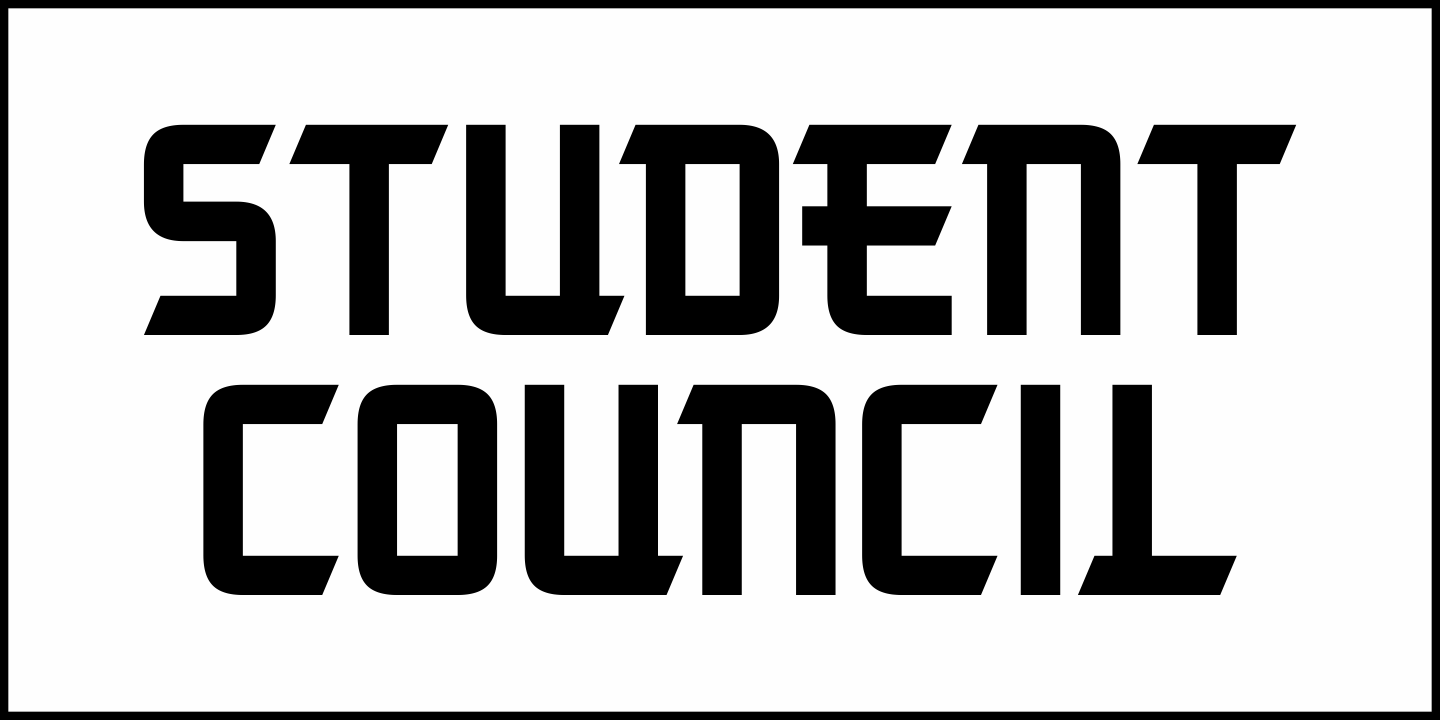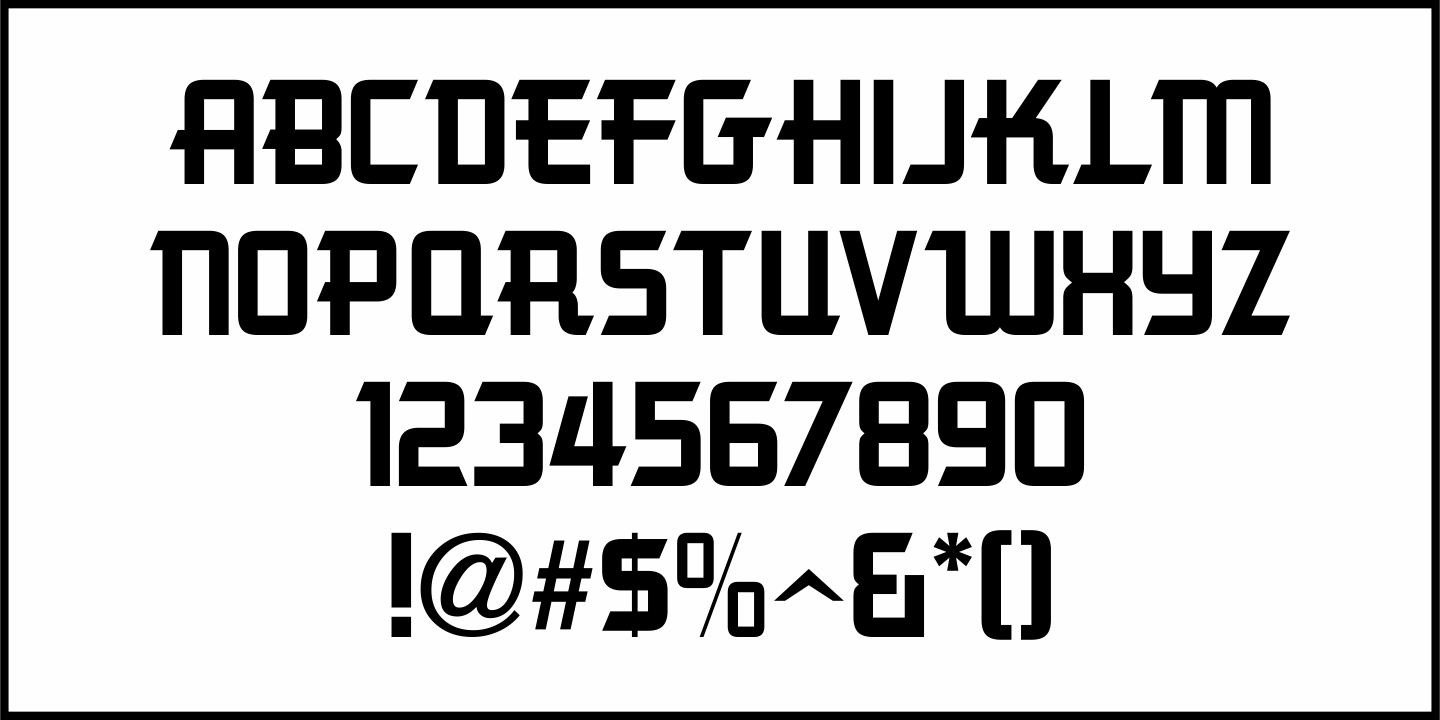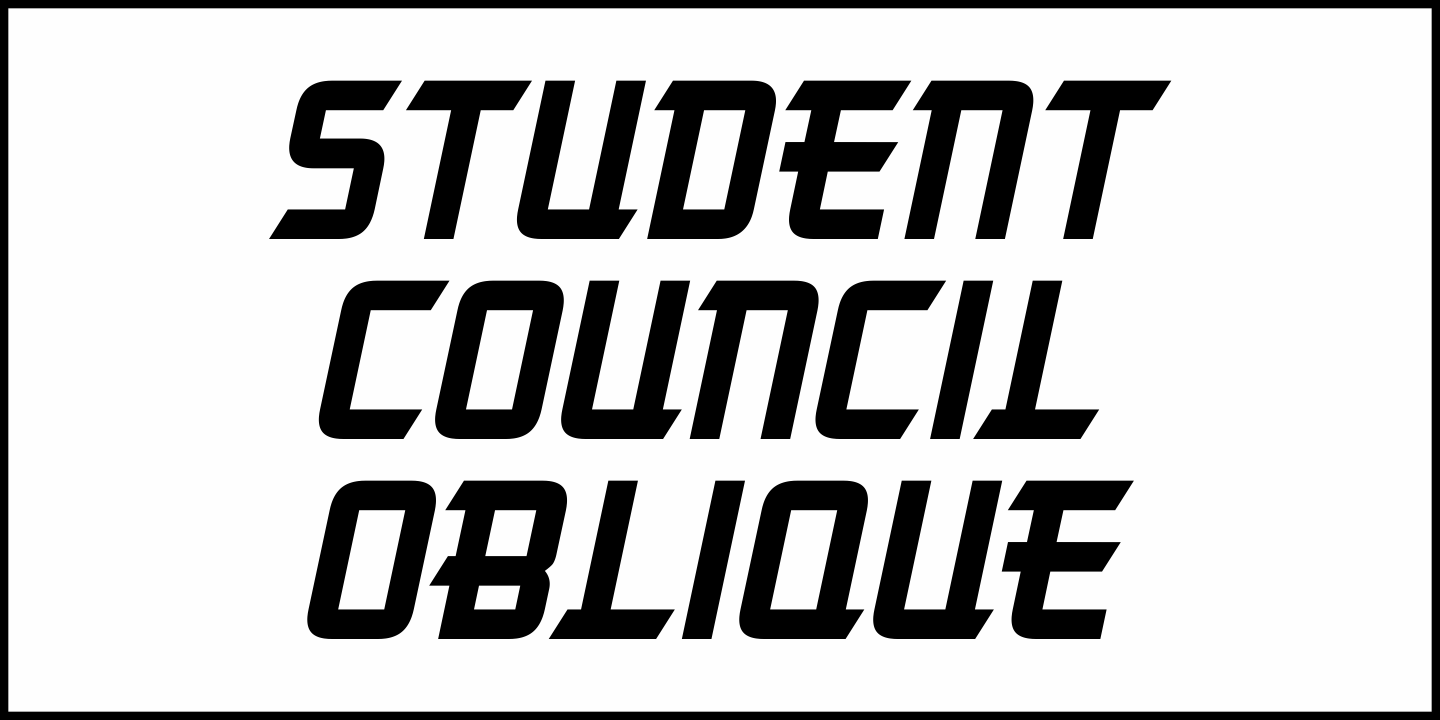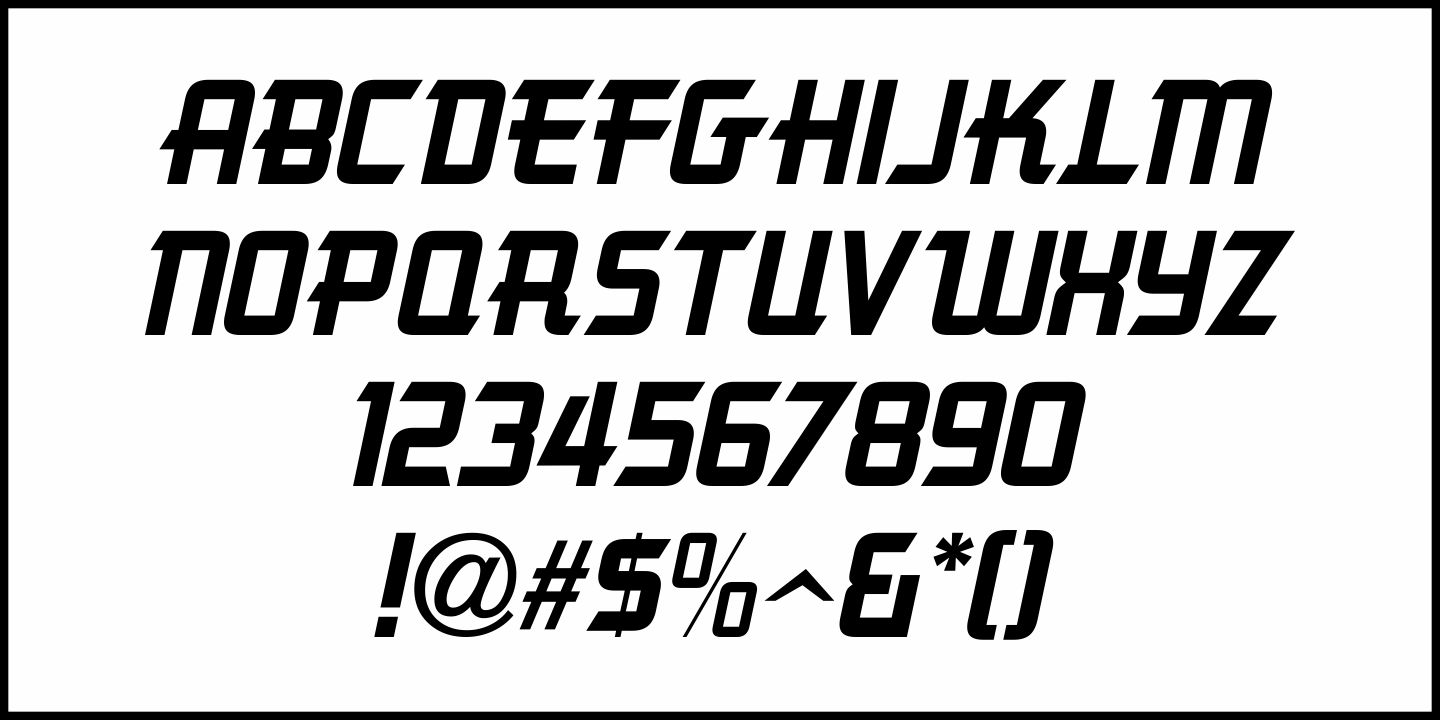
Student Council
While Student Council JNL was not influenced by any school activities, the design is based on a lithographed cardboard sign (circa 1930s) for Spizz Sparkling Water, a bottled seltzer from the Dr. Pepper Bottling Company of Lexington, Kentucky.
A squared letterform with angled semi-serifs, this Art Deco typeface grabs attention.
Student Council JNL is available in both regular and oblique versions.
Student Council JNL Regular by Jeff Levine Fonts